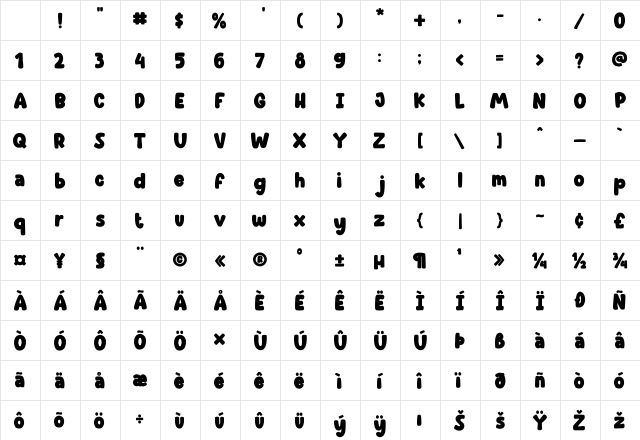
BACK TO SCHOOL is a composed and adaptable typeface that performs quietly and consistently across a wide range of design contexts.
Pro Tip: Use BACK TO SCHOOL in both headline and body roles to test its range before committing to a single application.